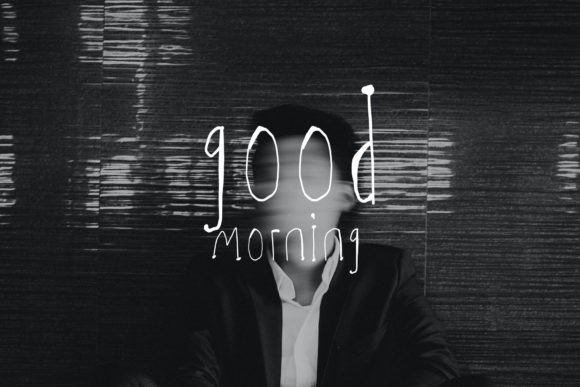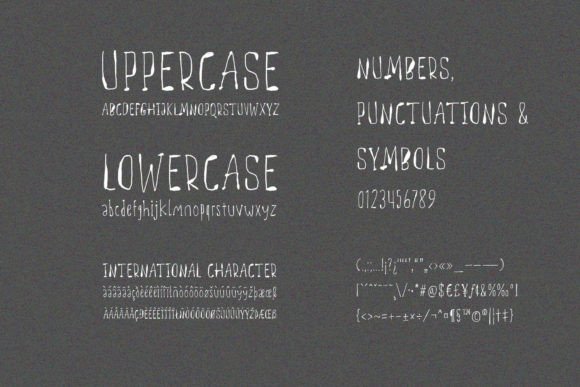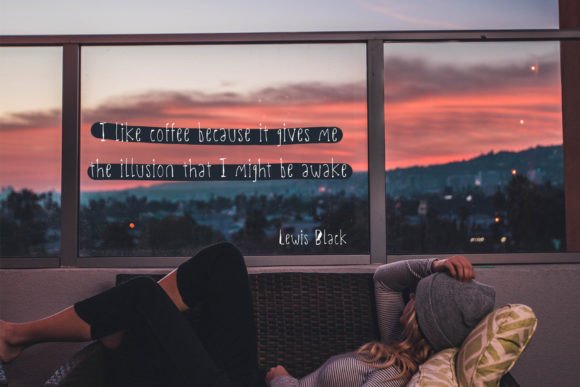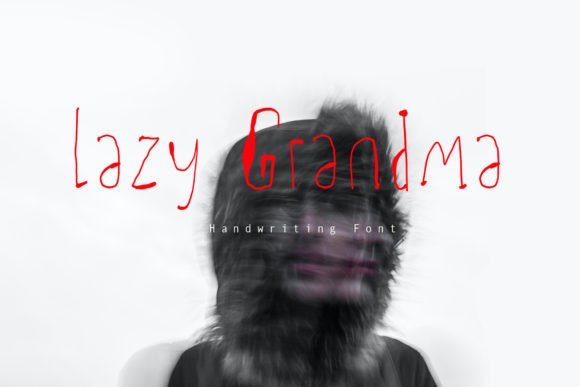
Introduction to Lazy Grandma Font
Lazy Grandma is a unique handwriting font with a distinctive relaxed touch.
The font brings a character that appears calm and serene, as if written with a laid-back attitude, giving a charming and different impression to your designs The history behind the creation of the Lazy Grandma font begins with our desire to present a font that reflects a relaxed atmosphere and exudes warmth.
Key Features of Lazy Grandma Font
Why Choose Lazy Grandma Font?